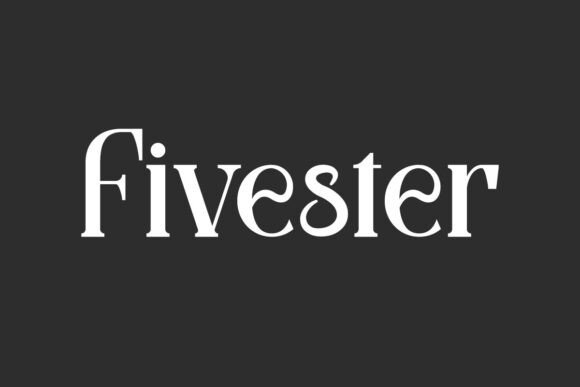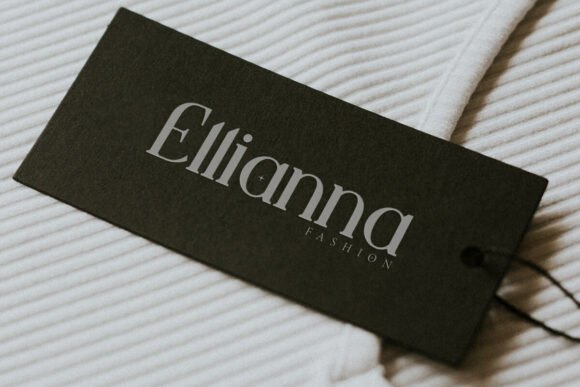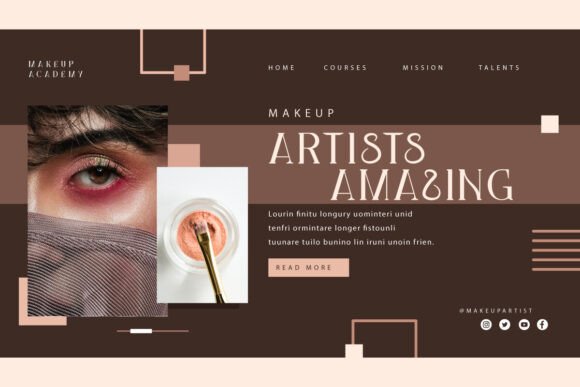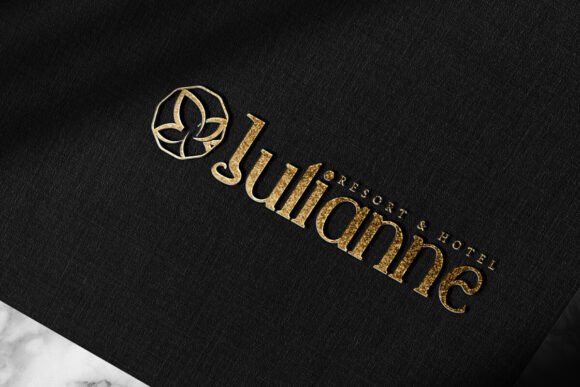
Fivester Font: Elegant Serif Typography for Luxurious Branding!
About the Fivester Font
Experience the unique personality of Fivester Font, a font designed for impact. Fivester Font is a stunning, elegant serif display font with mysterious vibes. This font can give a luxurious impression and can be paired with various types of fonts to give the best appearance. It will suit many designs, such as brochure, custom design, gift box, invitation, label, product packaging, quote, screen printing, signage, stationery, website, and more!
Fivester excels as a display font for headlines, short impactful statements, and branding elements where a touch of sophisticated mystery is desired. It’s ideal for projects related to luxury goods, high-end fashion, or artistic ventures. Its elegance shines in invitations, packaging, and signage, but its intricate details might be lost in smaller sizes or long blocks of body text. Avoid using it for UI or extensive body copy.
Pairing Fivester with a clean sans-serif like Montserrat or Lato creates a strong contrast, balancing its ornate serifs with modern simplicity. For a warmer feel, consider pairing it with a script font like Great Vibes, but use the script sparingly as a complement. A geometric sans-serif, such as Futura, would also create a striking juxtaposition, highlighting Fivester’s unique character.
The overall personality of Fivester is elegant yet subtly mysterious, conveying a sense of high quality and sophistication without being overly flamboyant. It projects a confident, refined air, suitable for brands aiming for a distinguished and memorable presence.